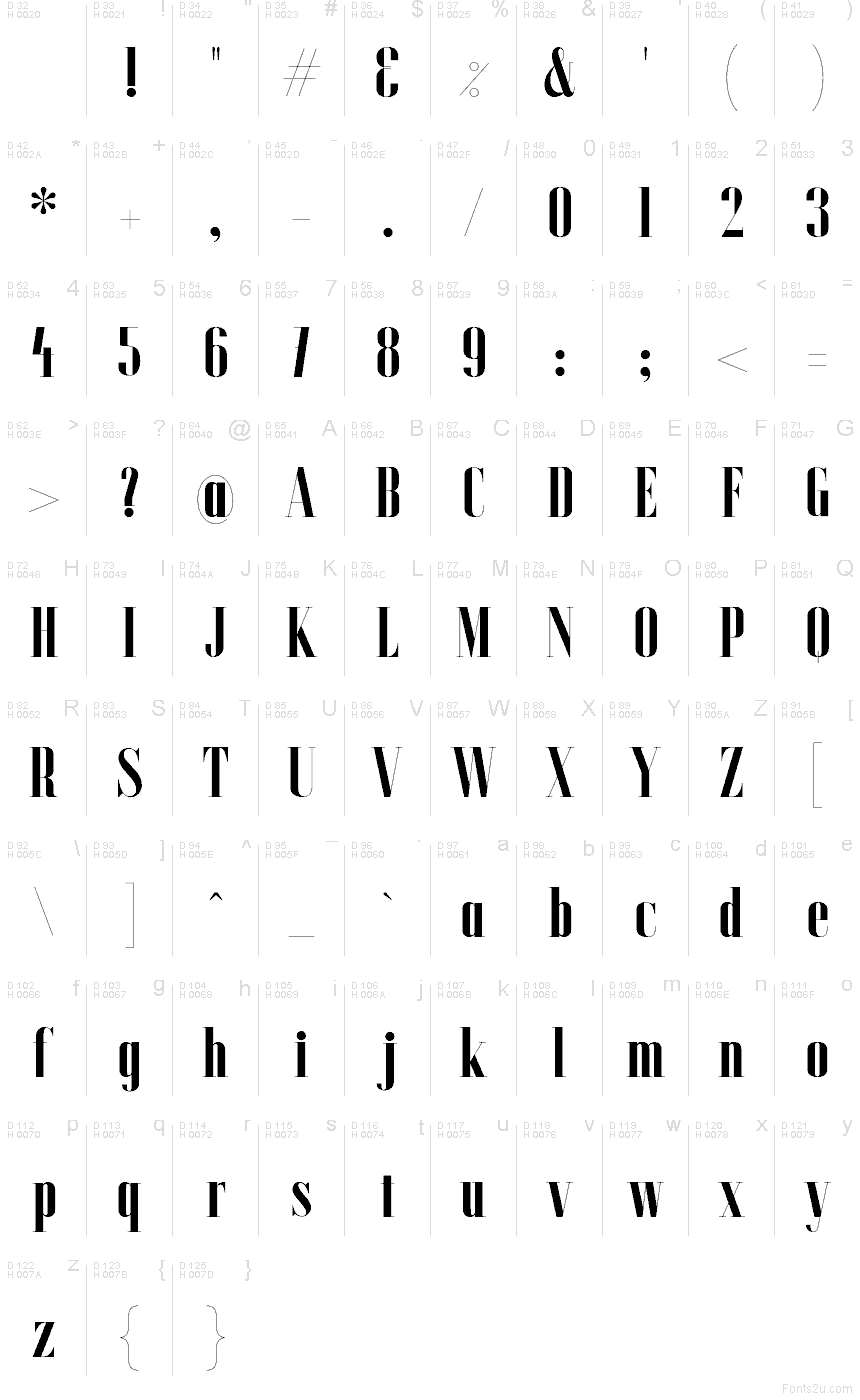
Ala
Ala, by David Buis, is a free high-contrast serif with a cool editorial poise. Its letters mix hairline strokes with heavy vertical weight, giving the font a crisp fashion-magazine feel, while the compact lowercase and tall proportions keep it feeling refined rather than ornate.
It fits naturally in branding, book covers, magazine mastheads, poster titles, and packaging where a little drama helps. As a free font, Ala also works well for short headlines, monograms, and title cards, because those stark thick-thin shifts give even a few letters a composed, upscale presence.